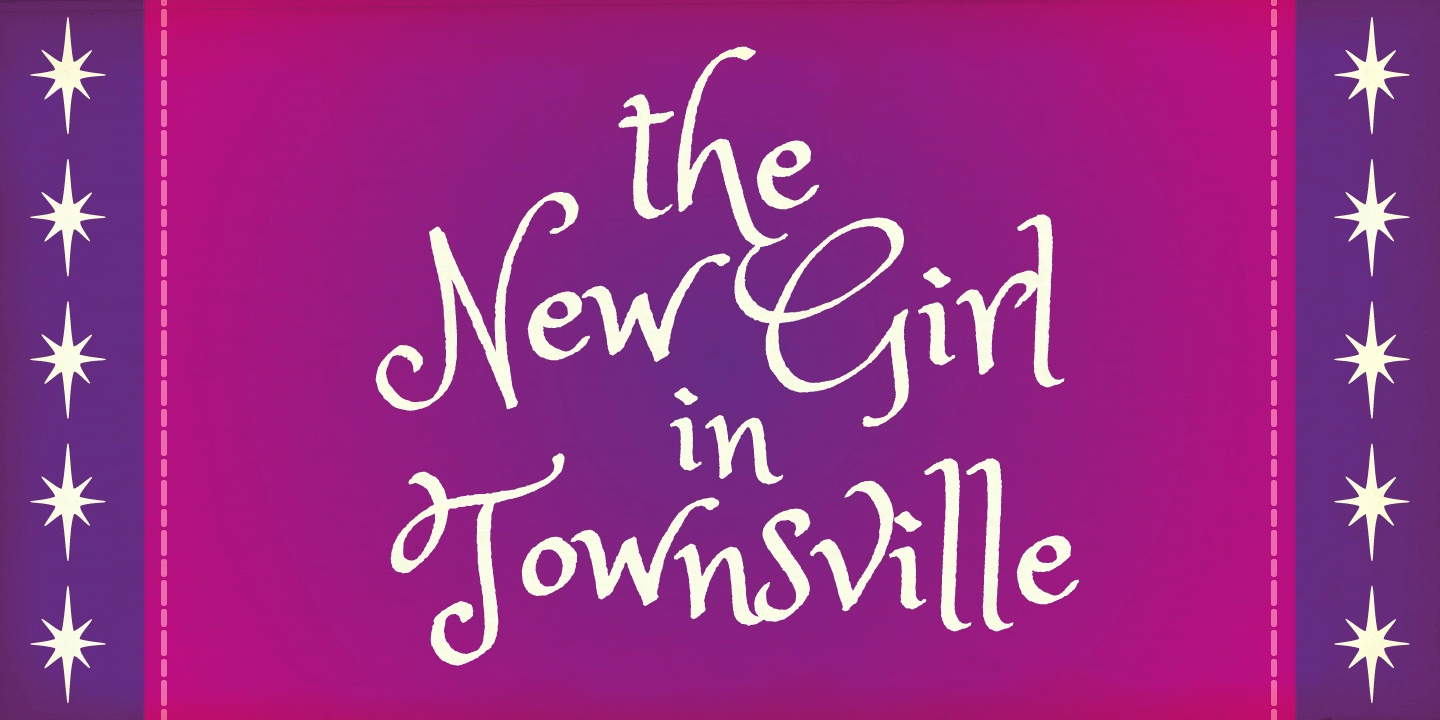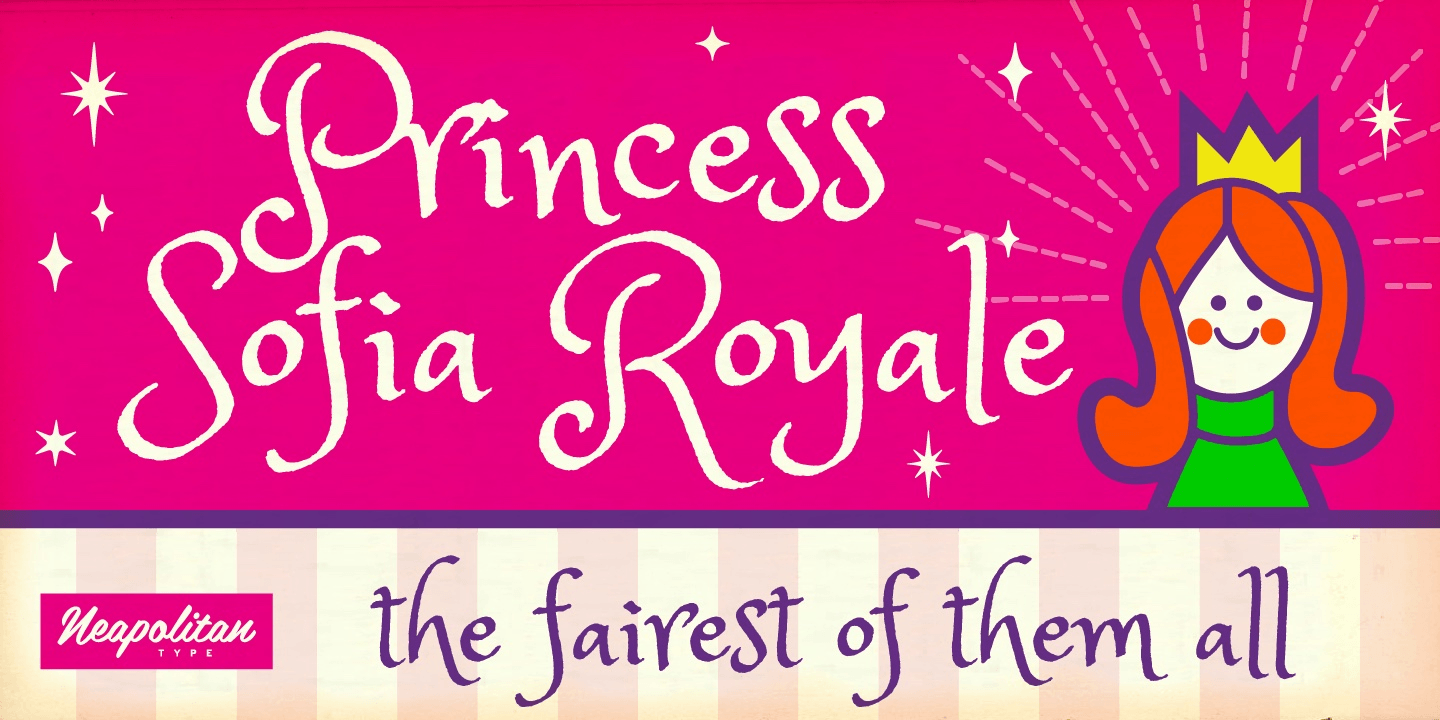
Princess Sofia Royale
About Princess Sofia Royale
She\’s a real princess who rules the casa with love, grace and fancy penmanship. A casual italic calligraphy inspired style perfect for titling with a little flair. The Pro version has been expanded and enhanced with more characters, dynamic OpenType…